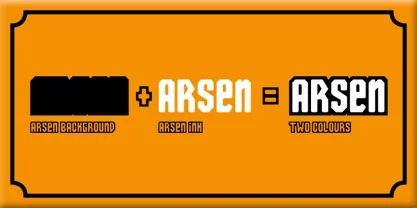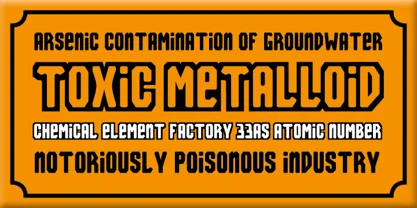
Arsen Font
Volcano Type is a independent font foundry based in Karlsruhe, Germany. The first course: a fast food youthfulness that was served for the first time in 1996. An earthy dish, created by chance, with thirteen organic fonts. Quickly whisked up and devoured. It rarely took more than a few days from sketch to use/digestion by the project. Uncouth forms, erupted from the bowels of the earth. Shattered letters, branded, stressed, humiliated. In order to produce arrogant fonts, far too expressive to last on a page of copy text. Quite indisputably from nature. Still roughly hewn. Raw. Imperfect. The second course formed a strong contrast: tight concept, linear work, disciplined preparation. In most cases the font was formed by a matrix. Digital cool, sober, reduced. Plenty of free scope, like chess: the board is always the same, the moves always different. Classic openings are followed by unfamiliar variants. Competitive games. Finely nuanced movements. Carefully thought out, one masterminded brainchild after another. Dessert: mathematical severity is rounded off and smoothed down. Fonts between digital and analogue. Straightened rivers - the surfaces of our times.